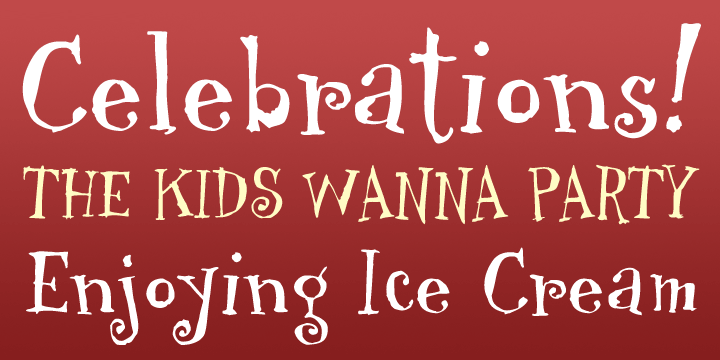
• Twizot A1
The Twizot HMK font is an engaging, alternative roman font from Hallmark. Its uneven baseline that gives it plenty of energy, and bouncy letterforms that make it a fun font to work with.